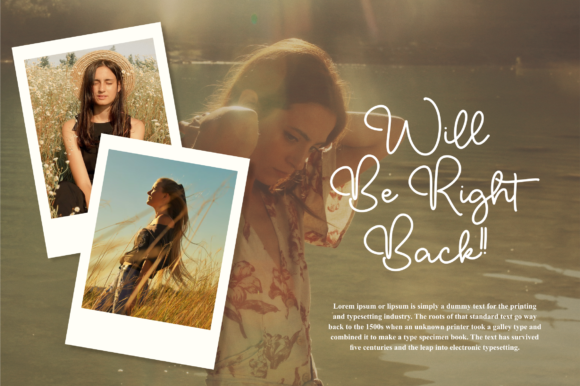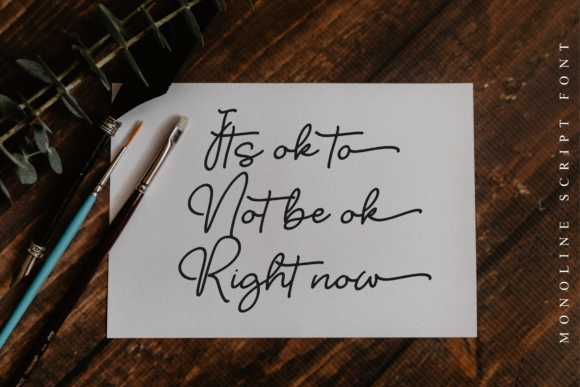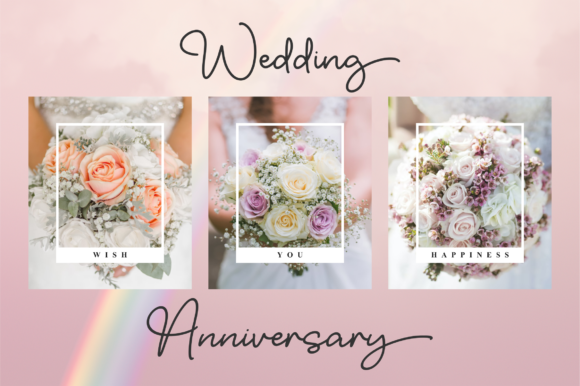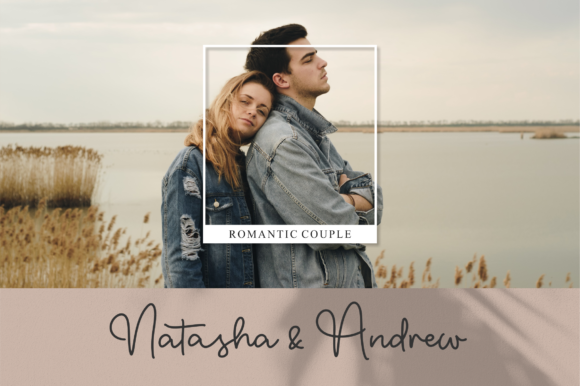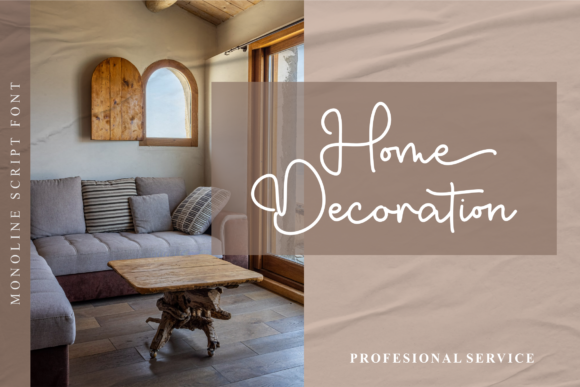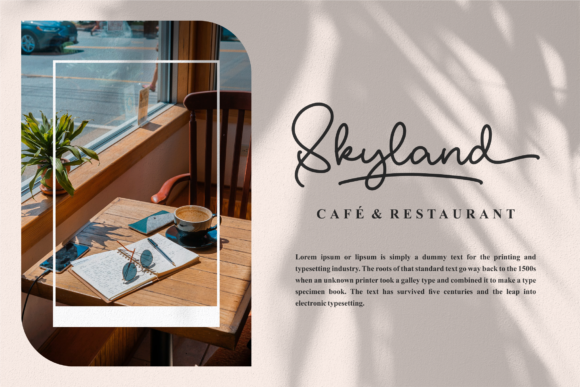
Galynda Alantha Font: Elevate Your Designs with Elegance and Charm
Galynda Alantha font is a stunning script typeface that exudes a sense of sophistication and refinement. Its elegant strokes and charming flair make it an ideal choice for designers and crafters looking to add a touch of luxury to their projects. In this article, we’ll explore the features and benefits of Galynda Alantha font, and discuss how it can be used to elevate your designs.
The Characteristics of Galynda Alantha Font
Galynda Alantha font is a beautifully crafted script typeface that boasts a range of impressive features. Its elegant and flowing strokes are perfect for creating sophisticated and eye-catching designs. The font comes with a range of characters, including uppercase and lowercase letters, numbers, and punctuation marks, making it versatile and easy to use.
One of the standout features of Galynda Alantha font is its charming and elegant aesthetic. The font’s strokes are smooth and flowing, with a subtle flair at the terminals that adds a touch of sophistication. The letters are spaced generously, making it easy to read and understand. Whether you’re working on a logo, branding project, or product packaging, Galynda Alantha font is sure to make a lasting impression.
Uses of Galynda Alantha Font
Galynda Alantha font is incredibly versatile and can be used for a wide range of projects. Here are some ideas to get you started:
- Logos and Branding Projects: Galynda Alantha font is perfect for creating sophisticated and memorable logos that will help your brand stand out.
- Homeware Designs: Add a touch of elegance to your homeware designs, such as ceramics, textiles, and wallpaper, with Galynda Alantha font.
- Product Packaging: Make your product packaging stand out with Galynda Alantha font. Its elegant and charming aesthetic is sure to catch the eye of potential customers.
- Mugs and Drinkware: Add a touch of sophistication to your mugs, cups, and other drinkware with Galynda Alantha font.
- Quotes and Posters: Create stunning quotes and posters with Galynda Alantha font. Its elegant strokes and charming flair make it perfect for showcasing inspirational quotes and messages.
- Shopping Bags and T-Shirts: Add a touch of elegance to your shopping bags and t-shirts with Galynda Alantha font.
- Book Covers and Name Cards: Galynda Alantha font is perfect for creating beautiful book covers and name cards that will make a lasting impression.
- Invitation Cards and Greeting Cards: Add a touch of sophistication to your invitation cards and greeting cards with Galynda Alantha font.
- Labels and Photography: Use Galynda Alantha font to create beautiful labels and watermarks for your photography projects.
Why Choose Galynda Alantha Font?
There are many reasons why Galynda Alantha font is an excellent choice for designers and crafters. Here are a few:
- Elegant and Charming Aesthetic: Galynda Alantha font boasts an elegant and charming aesthetic that is sure to elevate your designs.
- Versatile: Galynda Alantha font can be used for a wide range of projects, from logos and branding projects to product packaging and homeware designs.
- Easy to Read: The font’s generous spacing and smooth strokes make it easy to read and understand.
- High-Quality: Galynda Alantha font is a high-quality typeface that is designed to deliver exceptional results.
Galynda Alantha font is a stunning script typeface that is perfect for designers and crafters looking to add a touch of elegance and sophistication to their projects. Its charming and elegant aesthetic, versatility, and ease of use make it an excellent choice for a wide range of applications. Whether you’re working on a logo, branding project, product packaging, or homeware design, Galynda Alantha font is sure to deliver exceptional results. So why not give it a try and see the difference it can make to your designs?